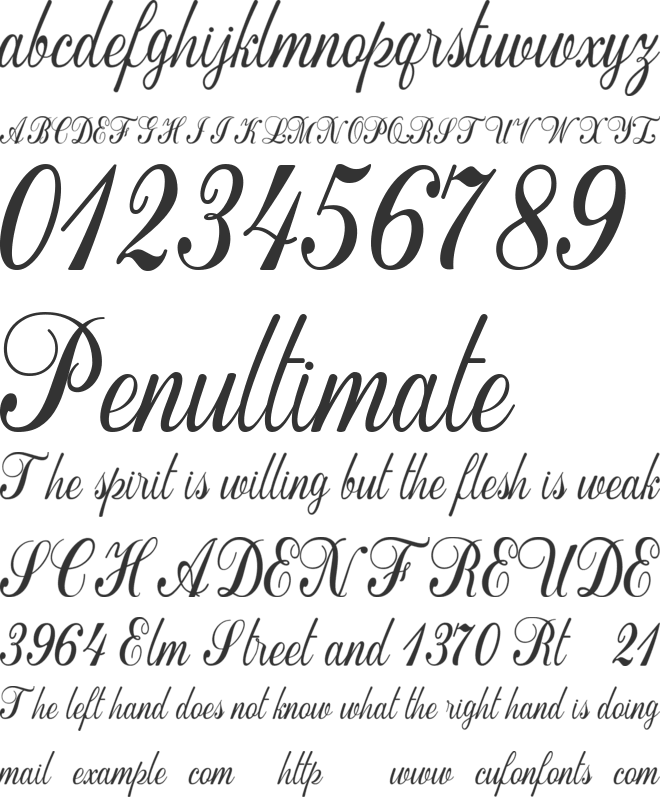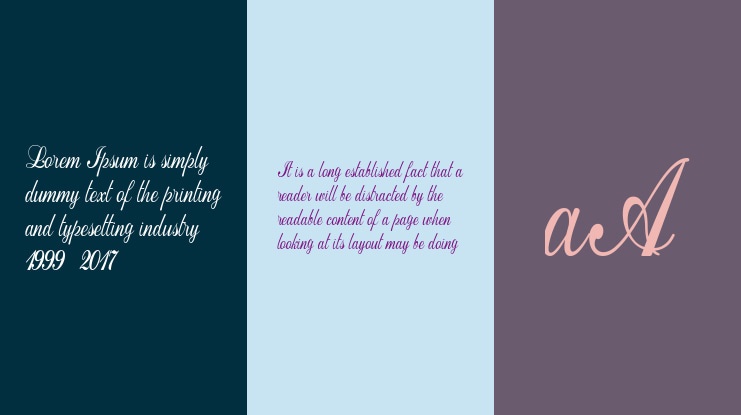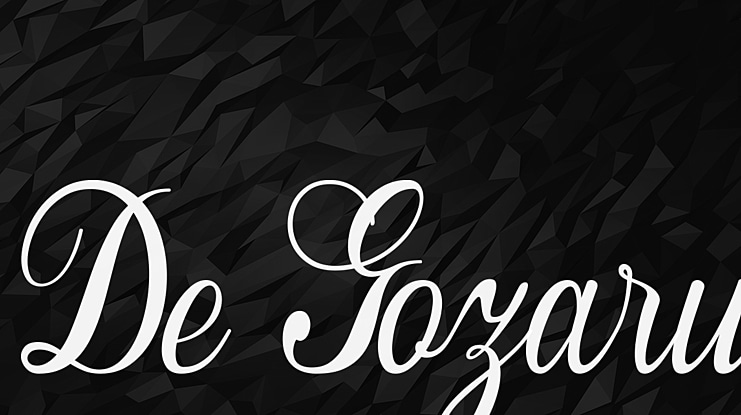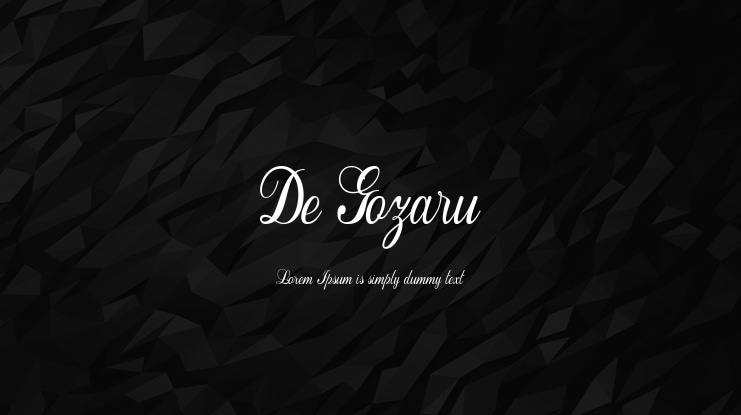
De Gozaru Font
De Gozaru, is a classic calligraphy font with a beautiful arch. This font is available in several modern swirls that can make your work look elegant, sweet and perfect. This font also has several alternatives that can allow you to improvise with your writing. This font is PUA encoded which means you can access all of the glyphs and swashes with ease!